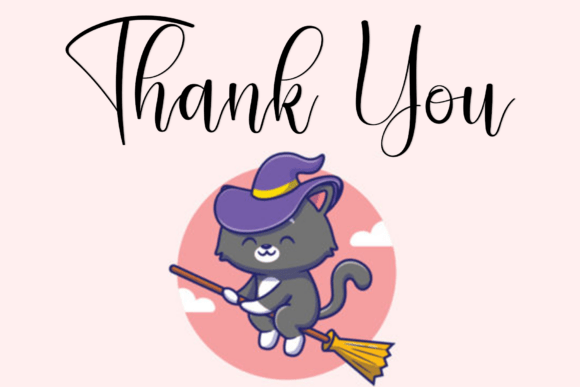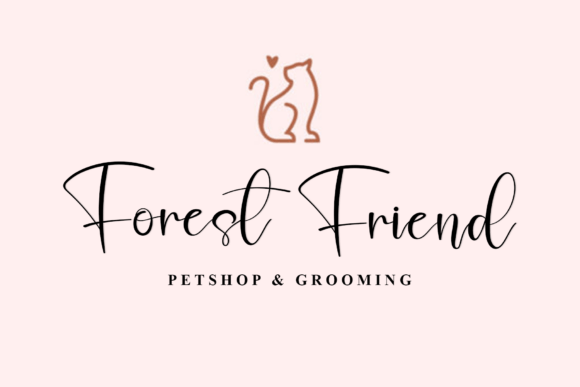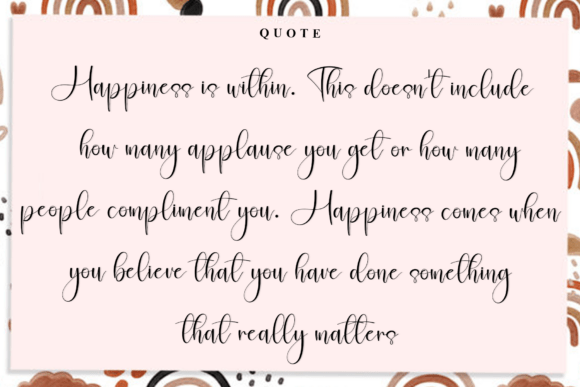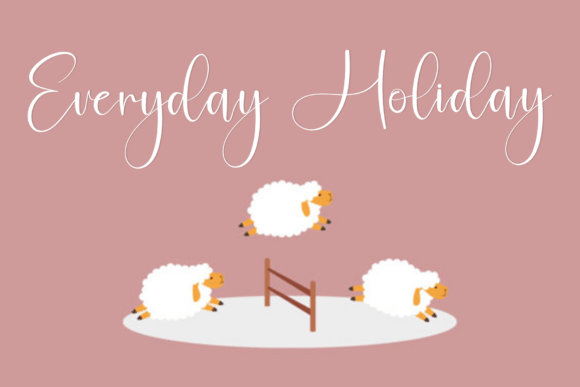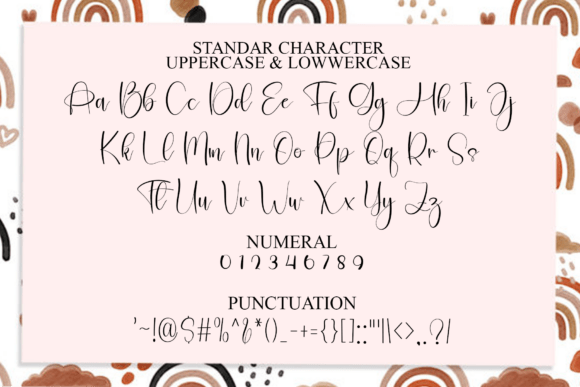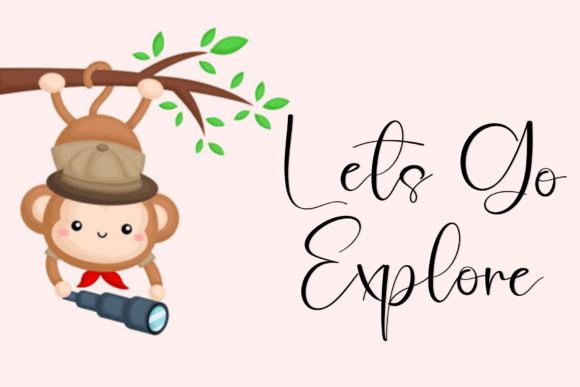
Brokline Danger Font: Add a Touch of Whimsy to Your Designs
In the world of typography, fonts play a crucial role in conveying the tone and personality of a design. If you’re looking for a font that exudes warmth, friendliness, and a dash of playfulness, look no further than Brokline Danger. This casual and creative font is perfect for designers, crafters, and DIY enthusiasts who want to add a unique touch to their projects.
The Characteristics of Brokline Danger
Brokline Danger is a hand-drawn font that boasts round, playful strokes that create a relaxed and approachable feel. Its charming aesthetic is reminiscent of handwritten notes and doodles, making it perfect for personal projects, invitations, and social media graphics. The font’s casual demeanor makes it an excellent choice for designers who want to add a touch of whimsy to their designs.
Perfect for Personal Projects
Whether you’re working on a personal project or a client’s design, Brokline Danger is an excellent choice. Its friendly and approachable feel makes it perfect for:
- Personalized invitations, such as birthday parties, baby showers, and weddings
- Social media graphics, including Facebook posts, Instagram stories, and Twitter headers
- DIY craft projects, such as handmade cards, gift tags, and scrapbooking
- Personal blogs and websites, where you want to add a touch of personality to your design
Why Designers Love Brokline Danger
Designers love Brokline Danger for its versatility and creative possibilities. Here are a few reasons why:
- Unique aesthetic: Brokline Danger’s hand-drawn aesthetic adds a fun and unique touch to any design, setting it apart from more traditional fonts.
- Easy to read: Despite its playful nature, Brokline Danger is easy to read, making it perfect for designs that require a clear and concise message.
- Customizable: As a digital font, Brokline Danger can be easily customized to fit your design needs, including adjusting font sizes, colors, and styles.
Tips for Using Brokline Danger
To get the most out of Brokline Danger, here are a few tips to keep in mind:
- Pair with contrasting fonts: Pair Brokline Danger with a contrasting font to create visual interest and add depth to your design.
- Use in moderation: While Brokline Danger is a beautiful font, it’s best used in moderation. Use it as a headline font or for emphasis, and pair with a more traditional font for body text.
- Experiment with colors: Brokline Danger looks great in a variety of colors, so don’t be afraid to experiment and find the perfect hue for your design.
Brokline Danger is a charming and creative font that’s perfect for designers, crafters, and DIY enthusiasts who want to add a touch of whimsy to their designs. Its friendly and approachable feel makes it perfect for personal projects, invitations, and social media graphics. With its unique aesthetic, ease of use, and customization options, Brokline Danger is sure to become a favorite in your design toolkit.